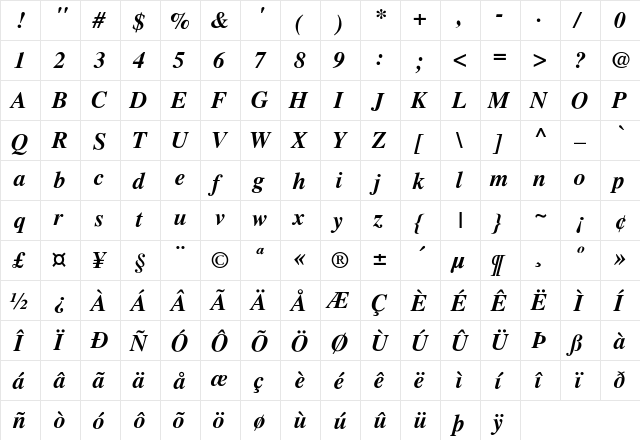
Dunford-BoldItalic Regular
Design Context for Dunford-BoldItalic Typeface
Dunford-BoldItalic offers clean, dependable letterforms without strong stylistic allegiance, making it a practical choice for designers who need flexibility. The dynamic lean of this cut emphasises speed and emphasis in any layout. The heavy weight commands attention and anchors typographic hierarchies.
Pro Tip: Use Dunford-BoldItalic for emphasis, pull quotes, and subheadings where its slanted energy can add rhythm to the layout.